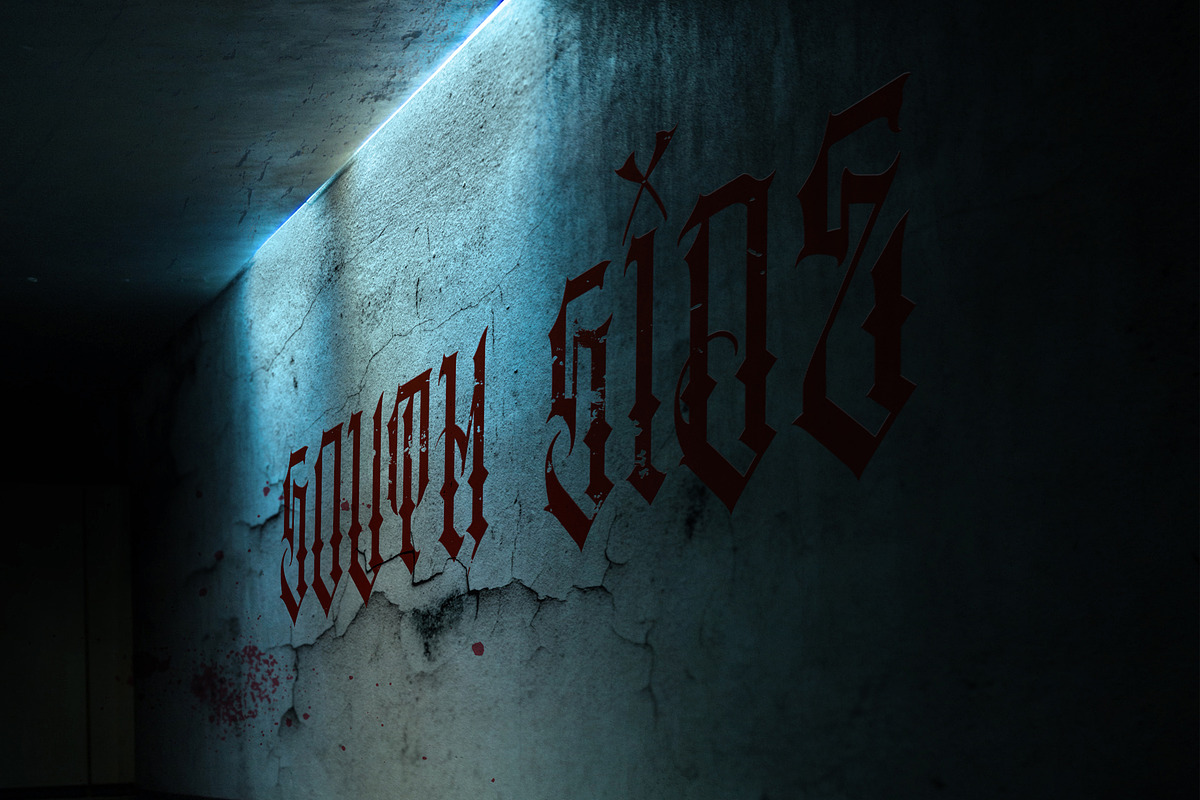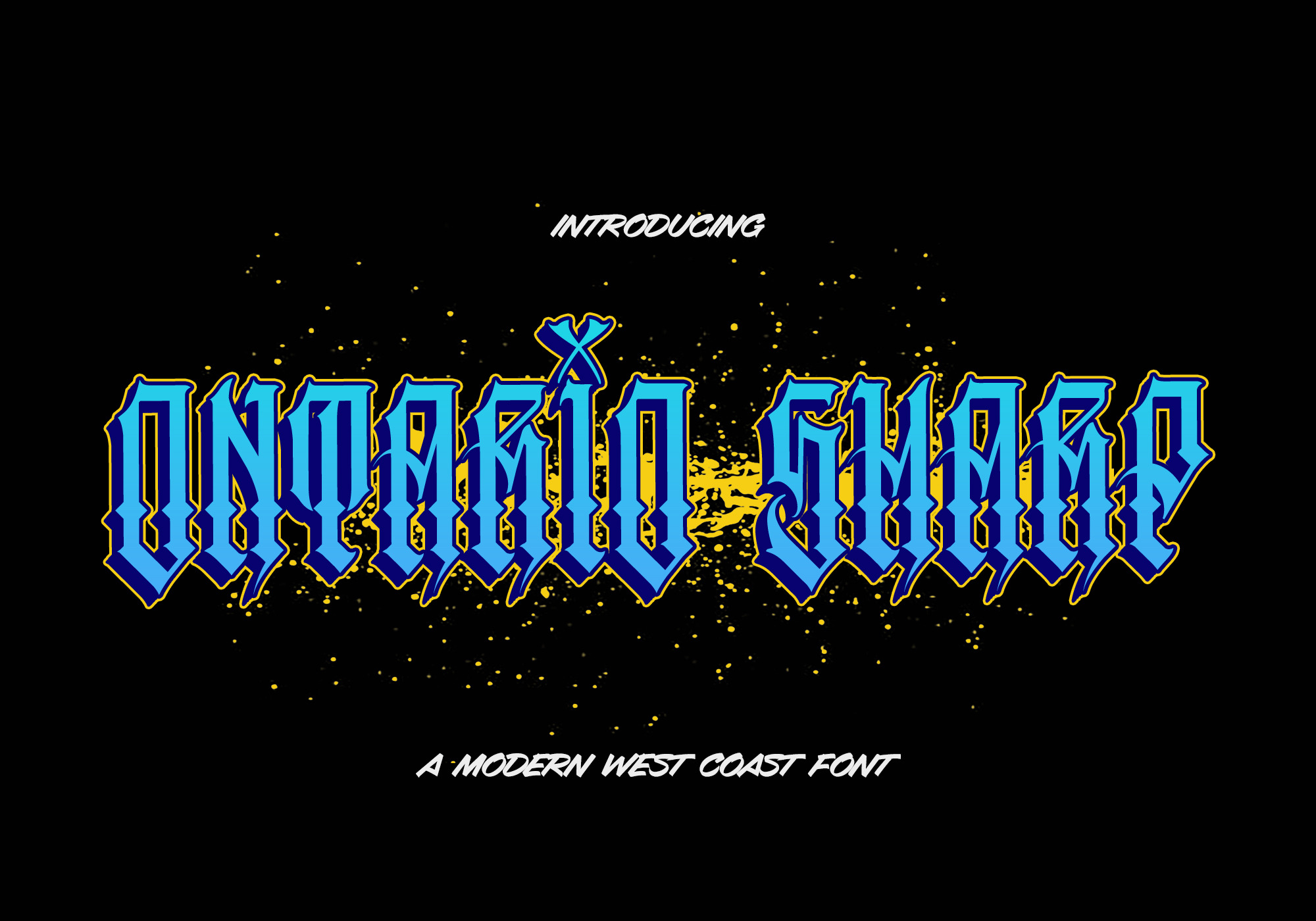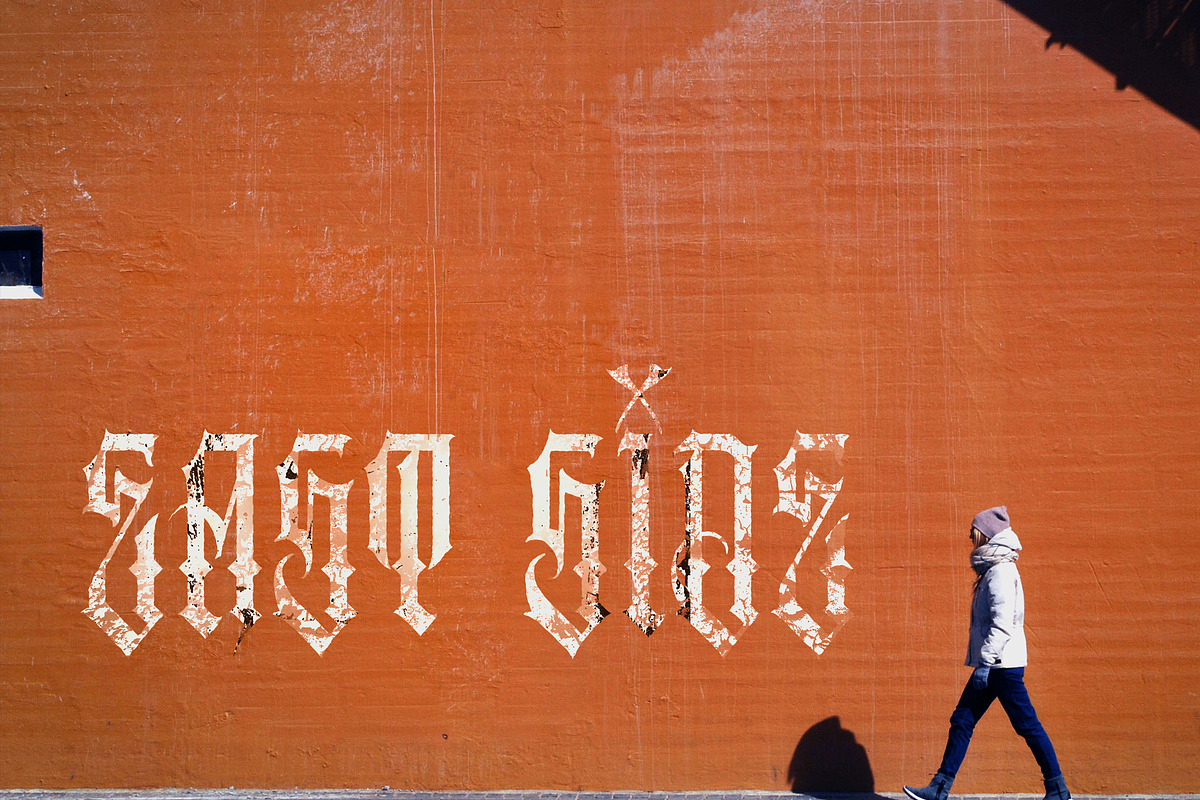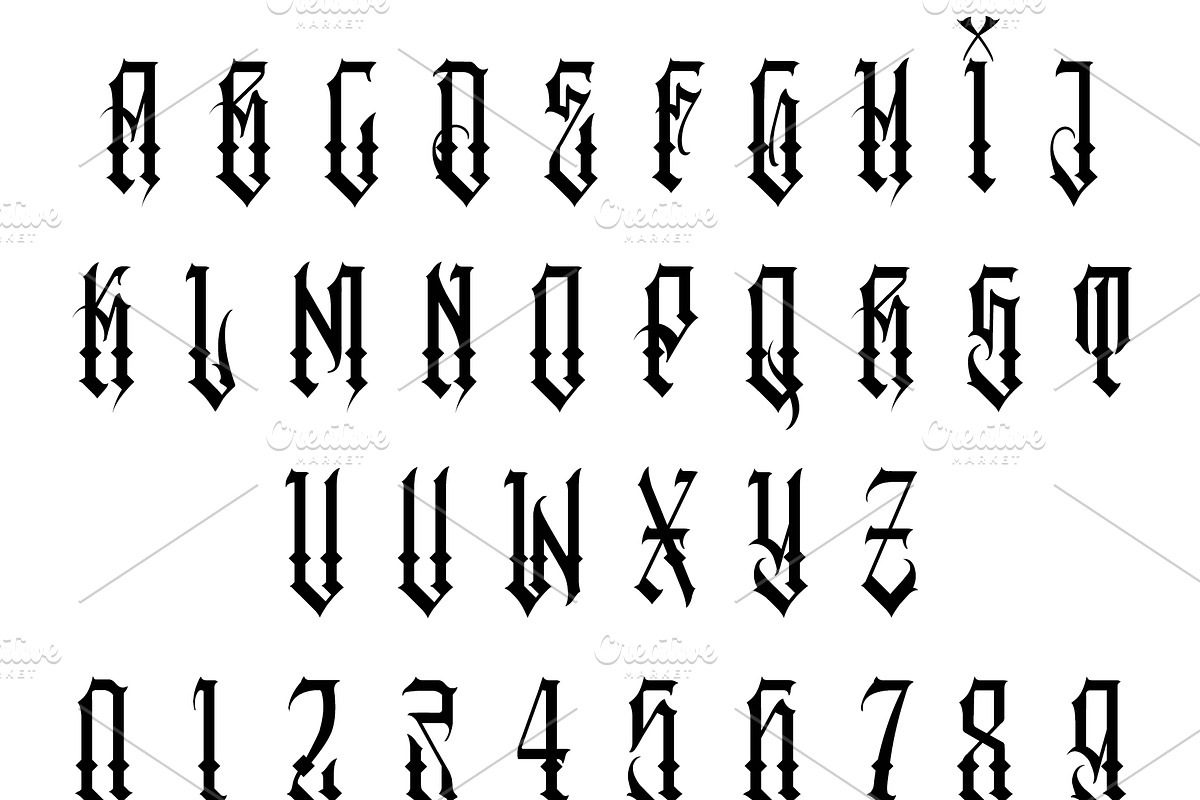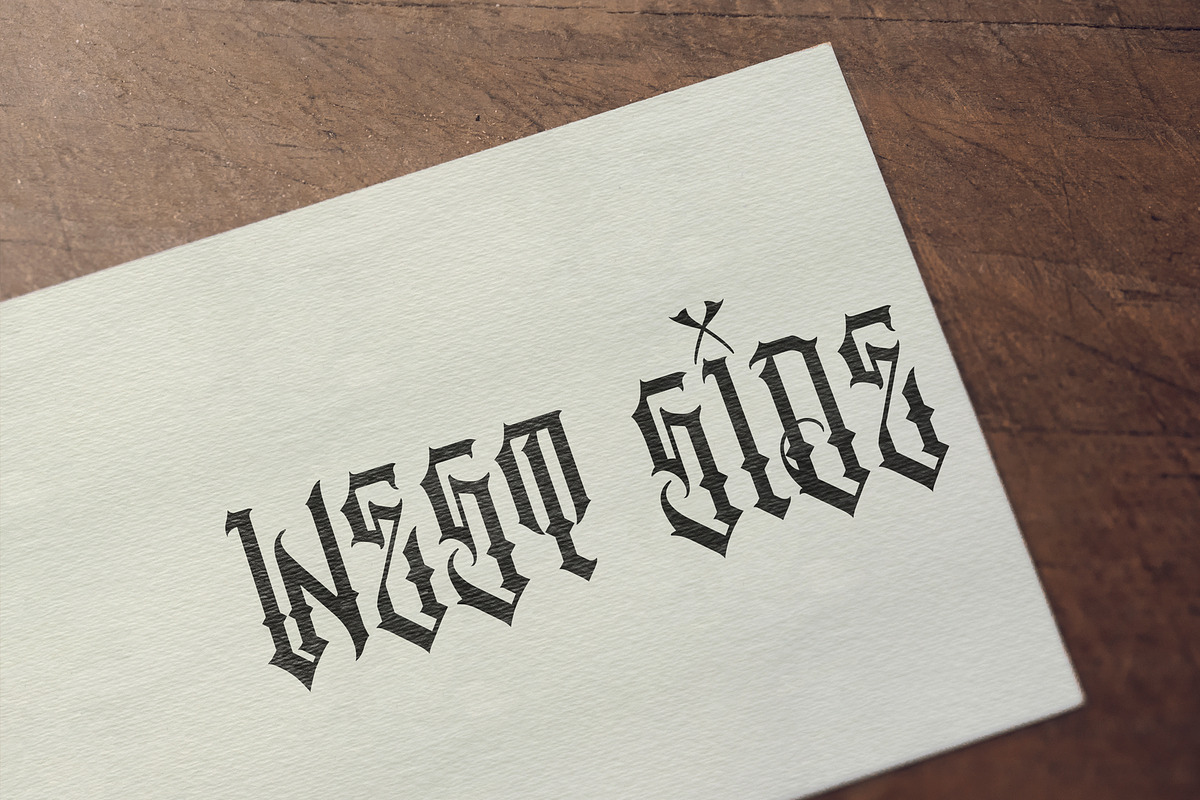
Ontario Sharp - Tattoo Style Font
Ontario Sharp is a West Coast-style font. It was made with tattoo artists and product designers in mind. Use this font for all types of design creations: tattoos, clothing lines, posters, book covers, etc. This West Coast style font will help bring any art project to life.